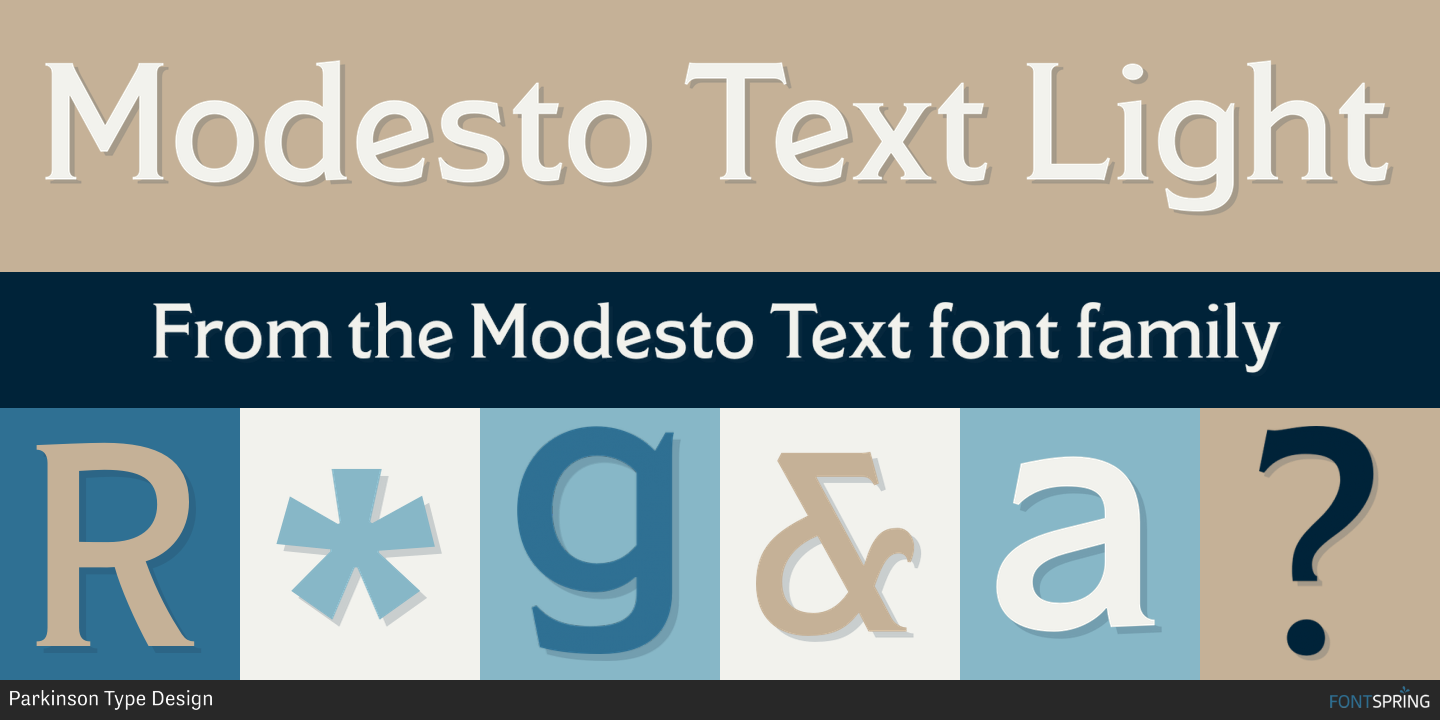
Modesto Text Font Free . Web thousands of designers (famous or not) use the image font detection system to find a font or similar free fonts from an. This typeface has six styles and was published by parkinson type design.
It’s called text because it has a lower case, and also to distinguish it from the rest of the modesto clan. Web designed by jim parkinson, modesto text is a serif font family. Web the modesto text family is text in name only.
Its clean lines and simple, unadorned forms make it a versatile choice for a wide. This typeface has six styles and was published by parkinson type design. It’s called text because it has a lower case, and also to distinguish it from the rest of the modesto clan. The font family is modesto.
Modesto Text Font Free - Web thousands of designers (famous or not) use the image font detection system to find a font or similar free fonts from an. Its clean lines and simple, unadorned forms make it a versatile choice for a wide. This typeface has six styles and was published by parkinson type design. It was designed by jim parkinson. Web designed by jim.
Modesto Text Font Free - Web the modesto text family is text in name only. Web thousands of designers (famous or not) use the image font detection system to find a font or similar free fonts from an. It’s the only modesto family with a. A typeface with 26 styles, available from adobe fonts for sync and web. It’s called text because it has a.
Modesto Text Font Free - Web designed by jim parkinson, modesto text is a serif font family. It was designed by jim parkinson. This typeface has six styles and was published by parkinson type design. Its clean lines and simple, unadorned forms make it a versatile choice for a wide. It’s the only modesto family with a.
Modesto Text Font Free - This typeface has six styles and was published by parkinson type design. Web the modesto text family is text in name only. Web explore modesto designed by jim parkinson at adobe fonts. It’s the only modesto family with a. Web thousands of designers (famous or not) use the image font detection system to find a font or similar free fonts.
Modesto Text Font Free - Web the modesto text family is text in name only. This typeface has six styles and was published by parkinson type design. The font family is modesto. It’s the only modesto family with a. Web designed by jim parkinson, modesto text is a serif font family.
Modesto Text Font Free - Web modesto bold is the perfect font for all your fun designs. It’s the only modesto family with a. A typeface with 26 styles, available from adobe fonts for sync and web. Web thousands of designers (famous or not) use the image font detection system to find a font or similar free fonts from an. Its clean lines and simple,.
Modesto Text Font Free - It’s called text because it has a lower case, and also to distinguish it from the rest of the modesto clan. Its clean lines and simple, unadorned forms make it a versatile choice for a wide. It was designed by jim parkinson. It’s the only modesto family with a. Web explore modesto designed by jim parkinson at adobe fonts.
Modesto Text Font Free - Web explore modesto designed by jim parkinson at adobe fonts. This typeface has six styles and was published by parkinson type design. Web the modesto text family is text in name only. It’s the only modesto family with a. Its clean lines and simple, unadorned forms make it a versatile choice for a wide.
Modesto Text Font Free - Web explore modesto designed by jim parkinson at adobe fonts. This typeface has six styles and was published by parkinson type design. Its clean lines and simple, unadorned forms make it a versatile choice for a wide. Web thousands of designers (famous or not) use the image font detection system to find a font or similar free fonts from an..
Modesto Text Font Free - Web explore modesto designed by jim parkinson at adobe fonts. It’s the only modesto family with a. Web the modesto text family is text in name only. This typeface has six styles and was published by parkinson type design. A typeface with 26 styles, available from adobe fonts for sync and web.
Modesto Text Font Free - Web designed by jim parkinson, modesto text is a serif font family. Web explore modesto designed by jim parkinson at adobe fonts. Web the modesto text family is text in name only. The font family is modesto. It’s the only modesto family with a.
Modesto Text Font Free - It’s the only modesto family with a. Web explore modesto designed by jim parkinson at adobe fonts. Web the modesto text family is text in name only. It was designed by jim parkinson. It’s called text because it has a lower case, and also to distinguish it from the rest of the modesto clan.
Modesto Text Font Free - This typeface has six styles and was published by parkinson type design. Web the modesto text family is text in name only. The font family is modesto. Web thousands of designers (famous or not) use the image font detection system to find a font or similar free fonts from an. Its clean lines and simple, unadorned forms make it a.
Modesto Text Font Free - This typeface has six styles and was published by parkinson type design. Web modesto bold is the perfect font for all your fun designs. It’s called text because it has a lower case, and also to distinguish it from the rest of the modesto clan. Web designed by jim parkinson, modesto text is a serif font family. It was designed.